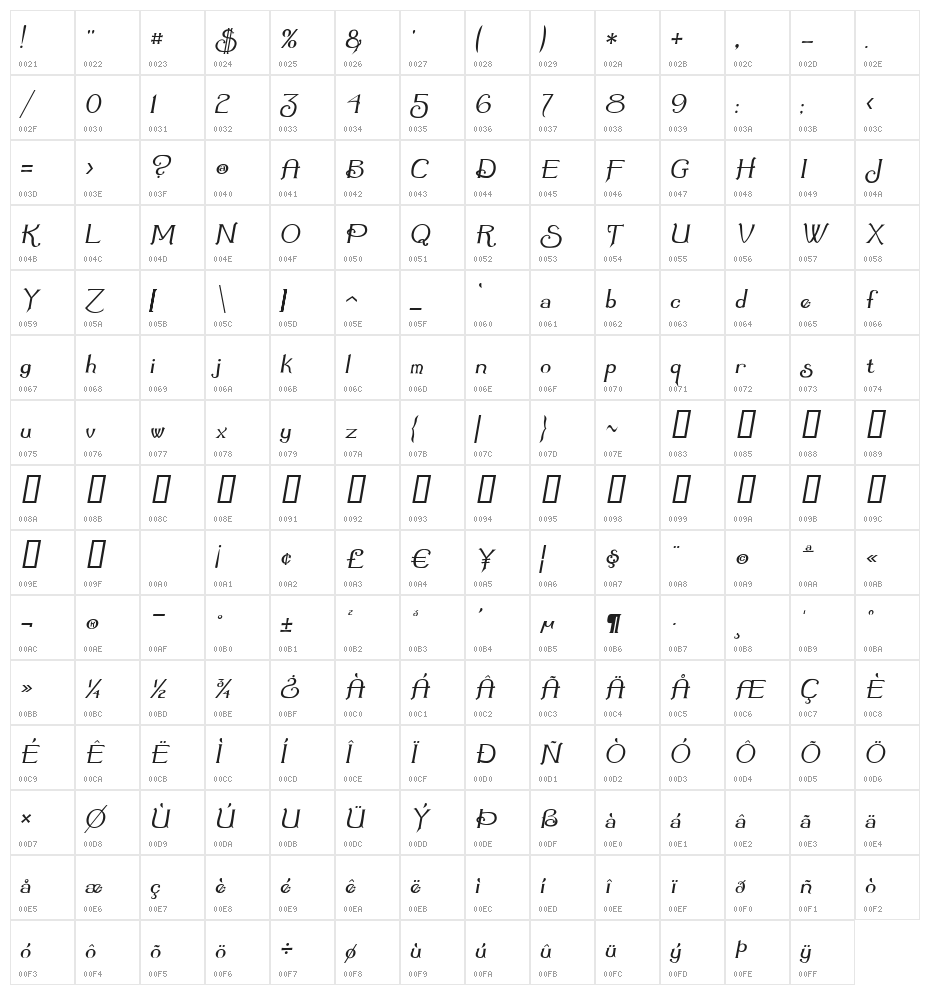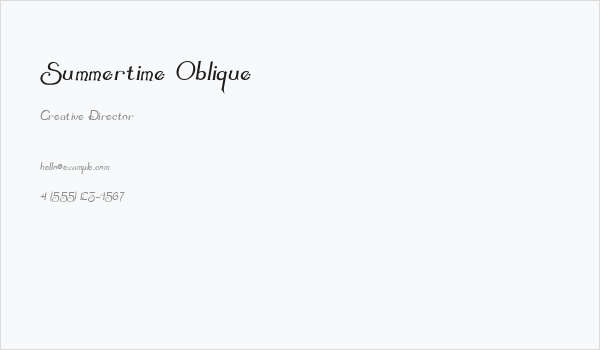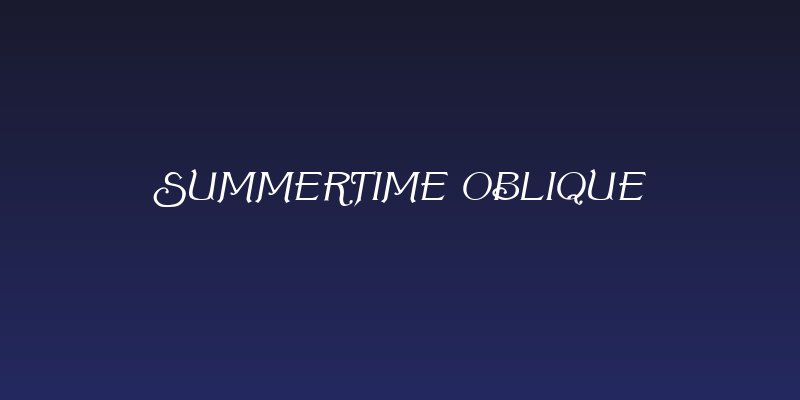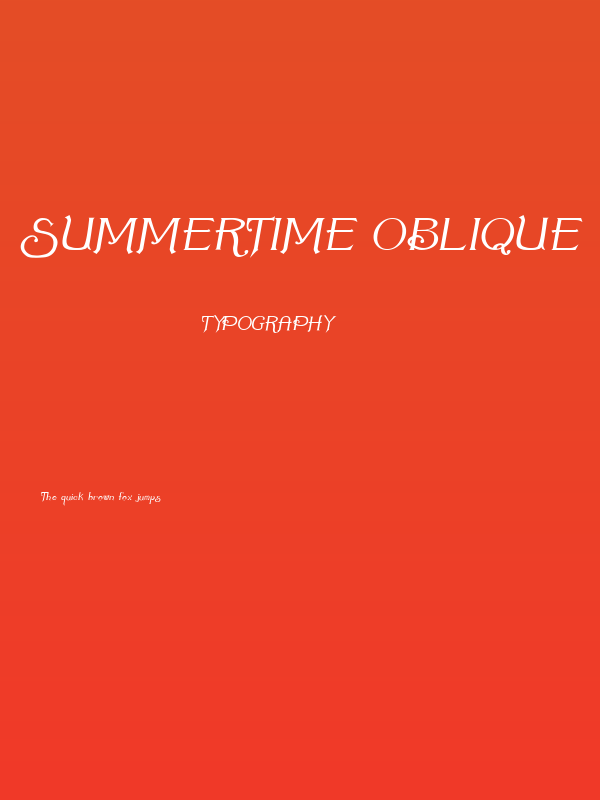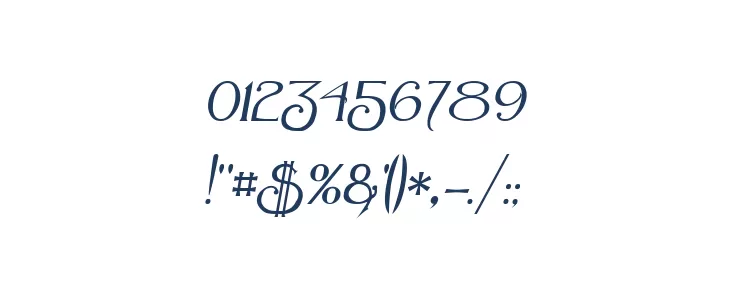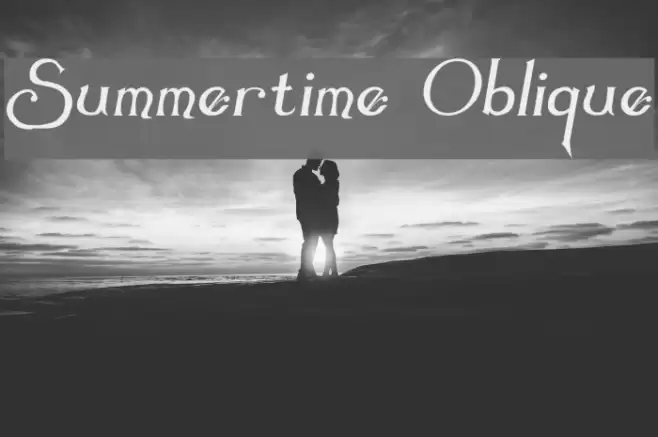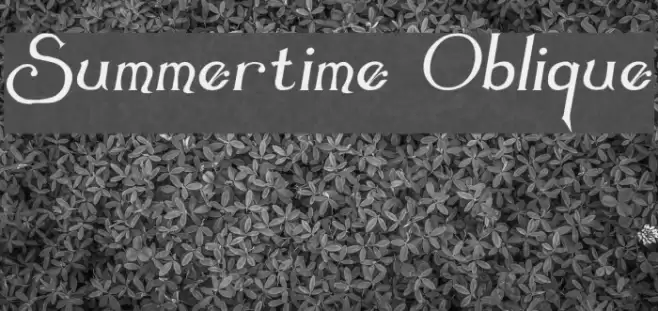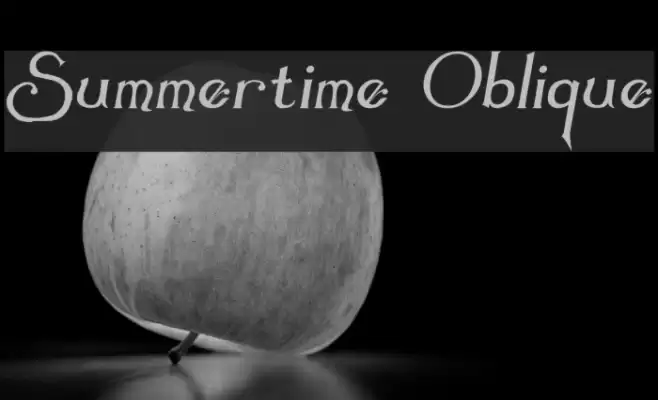
Summertime Oblique Font
Summertime Oblique Description
This font features a unique blend of elegance and playfulness, characterized by its oblique style and decorative elements. The uppercase letters have a distinctive flair, with some characters incorporating swashes and loops that add a whimsical touch. The lowercase letters maintain a consistent slant, enhancing the fluidity and dynamic appearance of the text. The numerals are bold and slightly rounded, complementing the overall style. Special characters are creatively designed, maintaining the font's artistic theme. This font is ideal for projects that require a touch of sophistication and creativity.
| Use Case | Logos, Invitations, Artistic projects |
| Proposed Projects | Perfect for wedding invitations, greeting cards, branding, and artistic posters. |